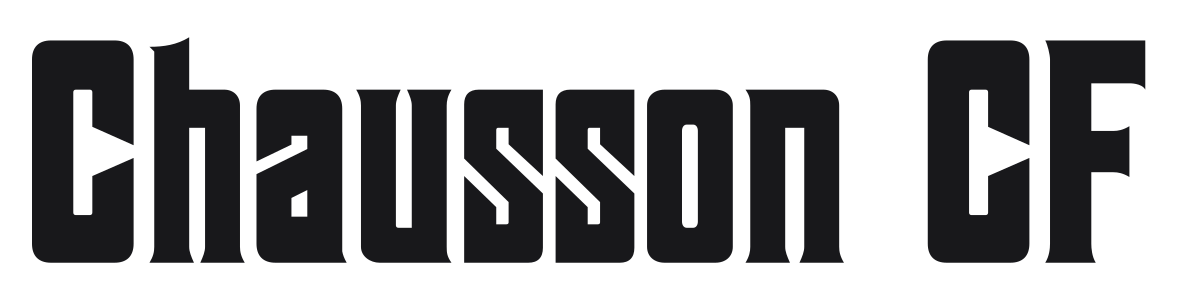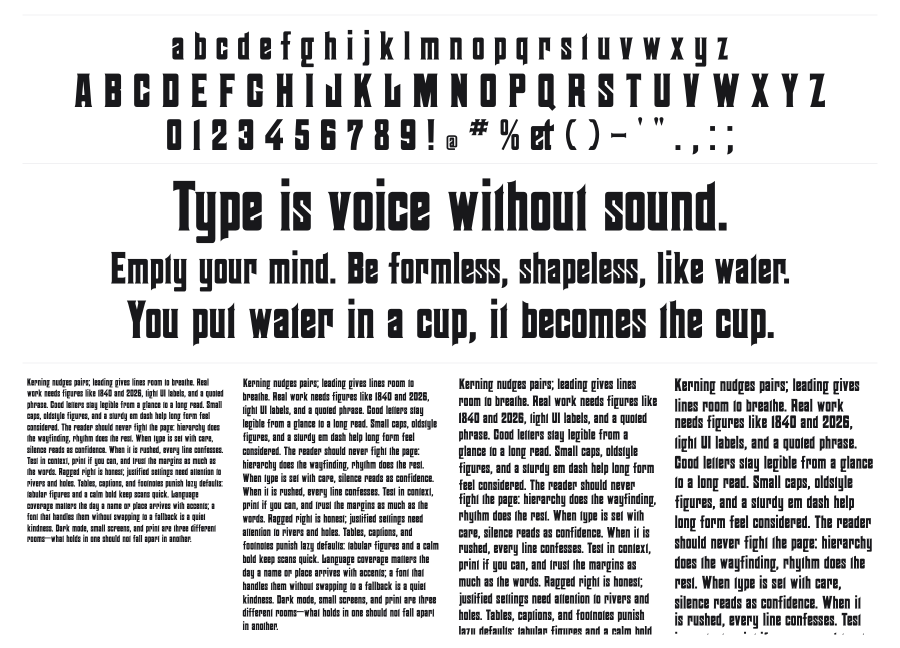
Chausson CF
Chausson CF is a revival of Othello, a typeface from the Central Type Foundry's 1892 specimen book, itself likely derived from an earlier wood type design. The result is an extremely condensed, heavy serif with dramatic stroke contrast and towering proportions that commands attention at any headline size. Swash alternates on several glyphs add a layer of period authenticity that straight revivals rarely bother with.